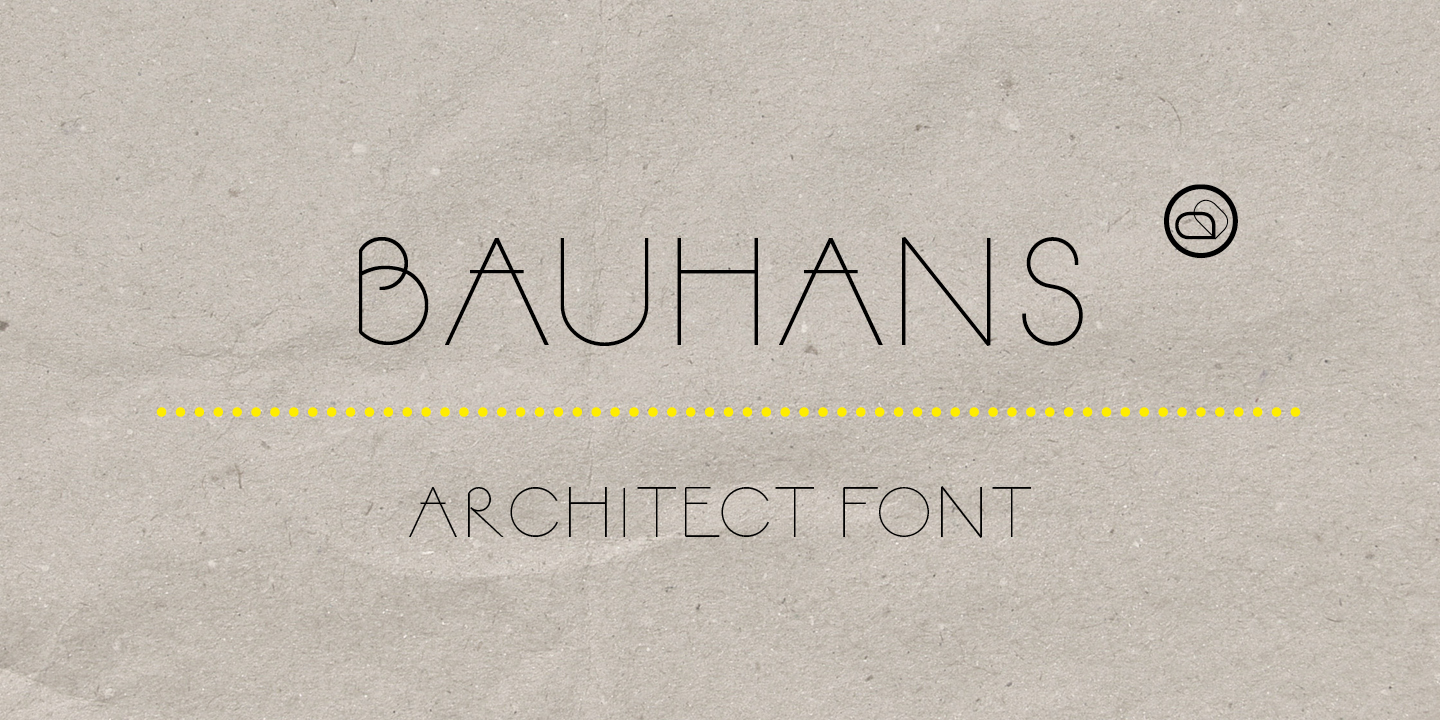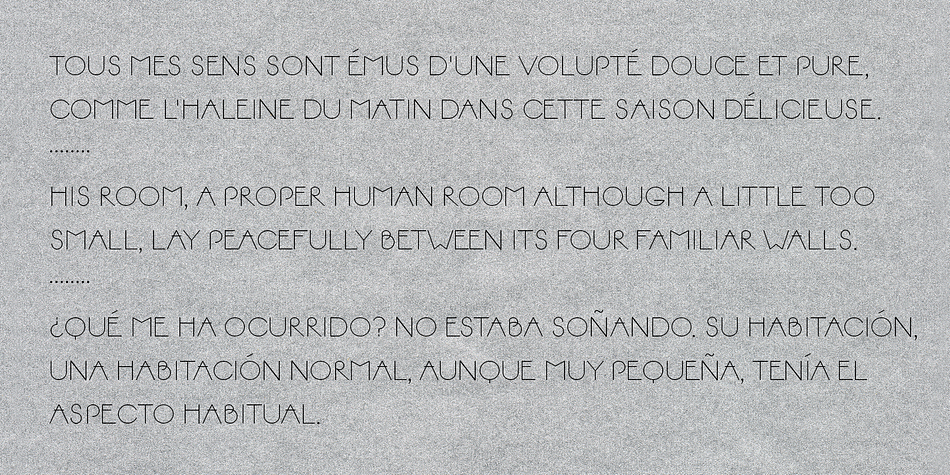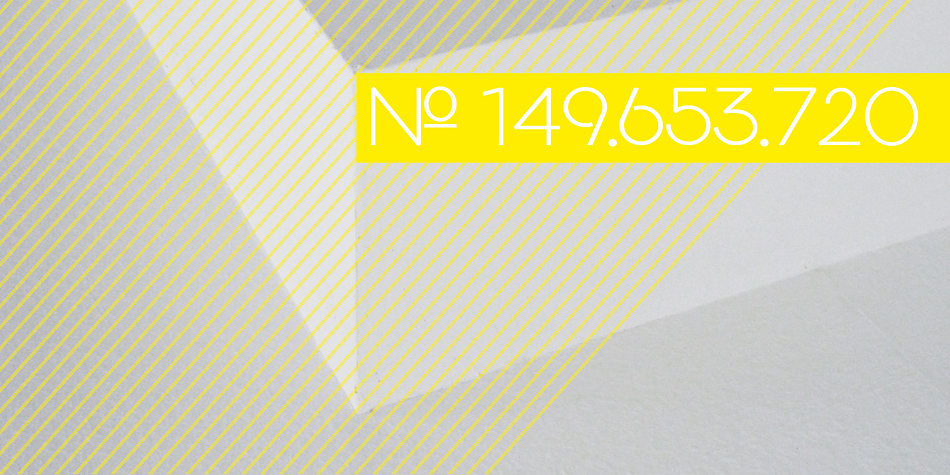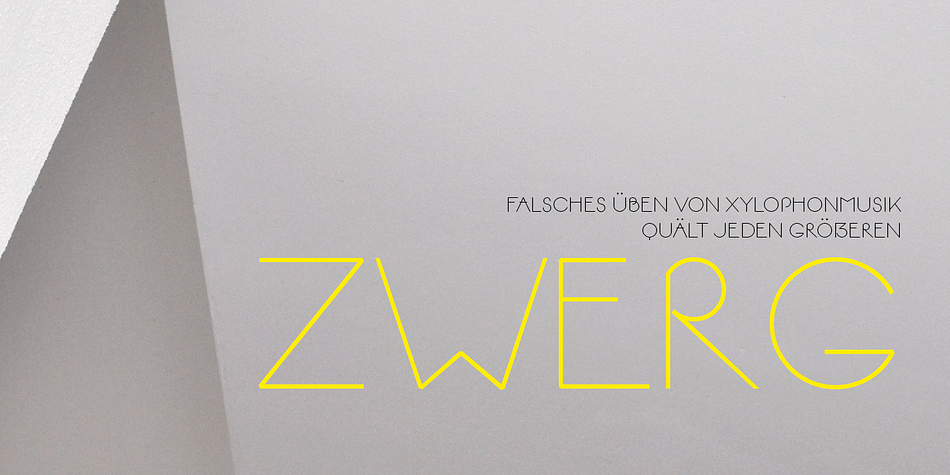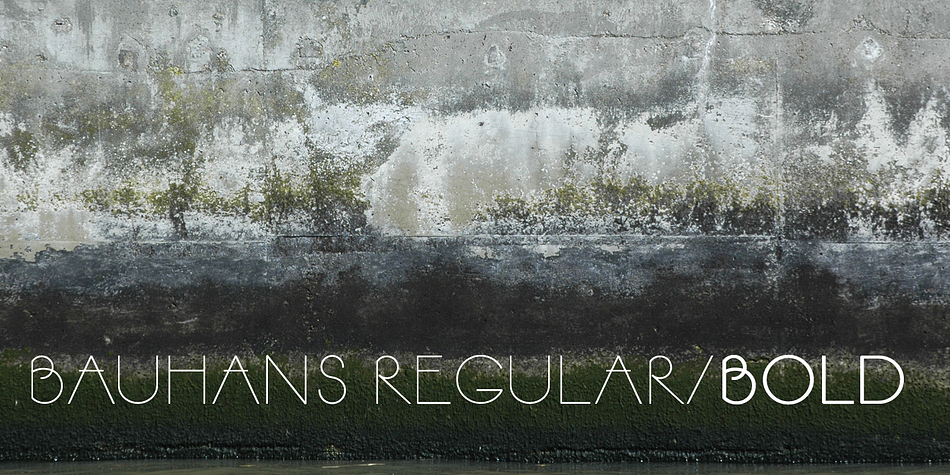
BAUHANS is a display sans font family. This typeface has two styles and was published by driemeyerdesign.
BAUHANS is a upper case typeface family which comes in 2 styles. The geometrical design gives it a distinct architectural style.